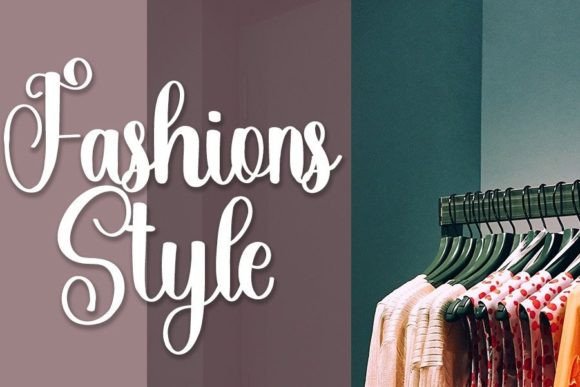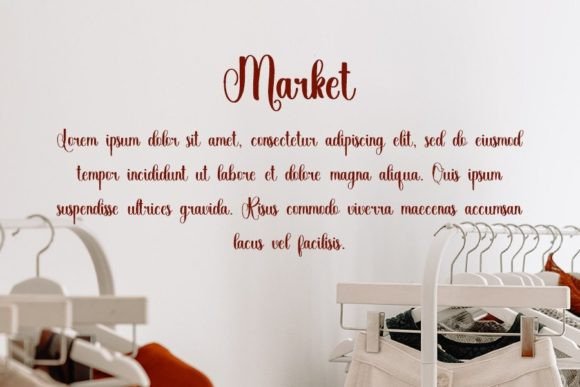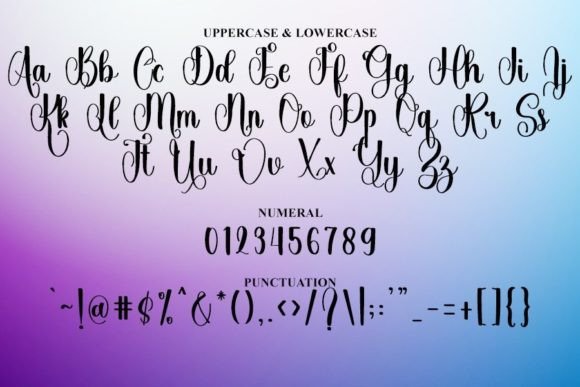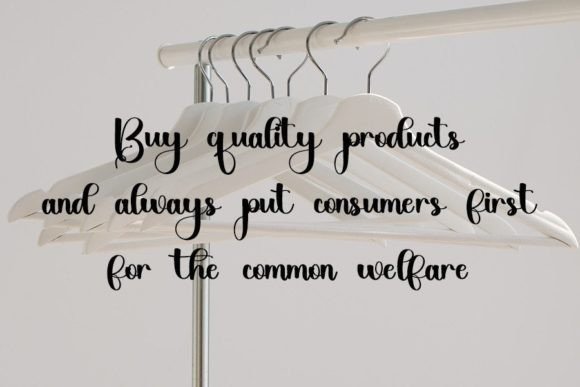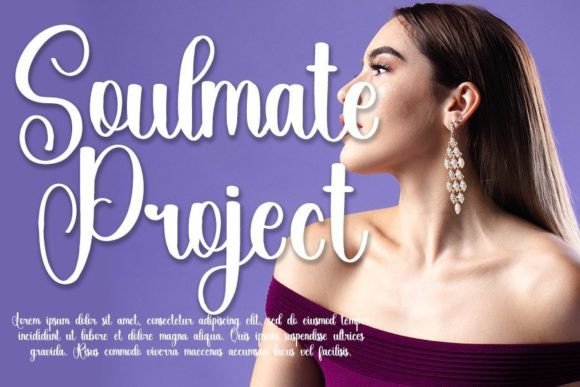
Introducing Elizabeth Font: Elevate Your Designs with Timeless Elegance
Are you searching for a font that embodies the perfect blend of classic sophistication and modern flair? Look no further than Elizabeth Font, a stylish handwritten font that is sure to elevate your designs to new heights. Inspired by the timeless beauty of classic calligraphy, Elizabeth Font brings a contemporary atmosphere and impeccable form to your projects, making it the perfect choice for designers and crafters alike.
The Inspiration Behind Elizabeth Font
Elizabeth Font draws its inspiration from the world of classic calligraphy, where the art of beautiful handwriting is revered. With its roots in traditional calligraphy, Elizabeth Font brings a sense of elegance and refinement to your designs, perfect for projects that require a touch of sophistication. Whether you’re working on a branding project, a wedding invitation, or a craft project, Elizabeth Font is sure to add a touch of timeless beauty to your work.
What Sets Elizabeth Font Apart
So, what makes Elizabeth Font stand out from the crowd? Here are just a few features that set it apart:
- Balanced and Varied: Elizabeth Font has been carefully crafted to offer a balanced and varied range of characters, ensuring that your designs look polished and refined.
- Contemporary Atmosphere: With its modern take on classic calligraphy, Elizabeth Font brings a fresh and contemporary atmosphere to your designs.
- Impeccable Form: Each character in Elizabeth Font has been meticulously crafted to ensure impeccable form and flawless execution.
Elizabeth Font is the perfect choice for designers and crafters looking to add a touch of elegance to their projects. Whether you’re working on:
- Branding Projects: Use Elizabeth Font to create stunning logos, business cards, and letterheads that exude sophistication and refinement.
- Wedding Invitations: Add a touch of romance and elegance to your wedding invitations and stationery with Elizabeth Font.
- Craft Projects: Use Elizabeth Font to create beautiful handmade cards, scrapbook pages, and other craft projects that require a personal touch.
Why Choose Elizabeth Font?
With so many fonts to choose from, why should you choose Elizabeth Font? Here are just a few reasons:
- Unique and Versatile: Elizabeth Font is a unique and versatile font that can be used in a wide range of design projects.
- Elegant and Refined: With its classic calligraphy roots, Elizabeth Font brings an air of elegance and refinement to your designs.
- Easy to Read: Elizabeth Font is clear, legible, and easy to read, making it perfect for body text and headlines.